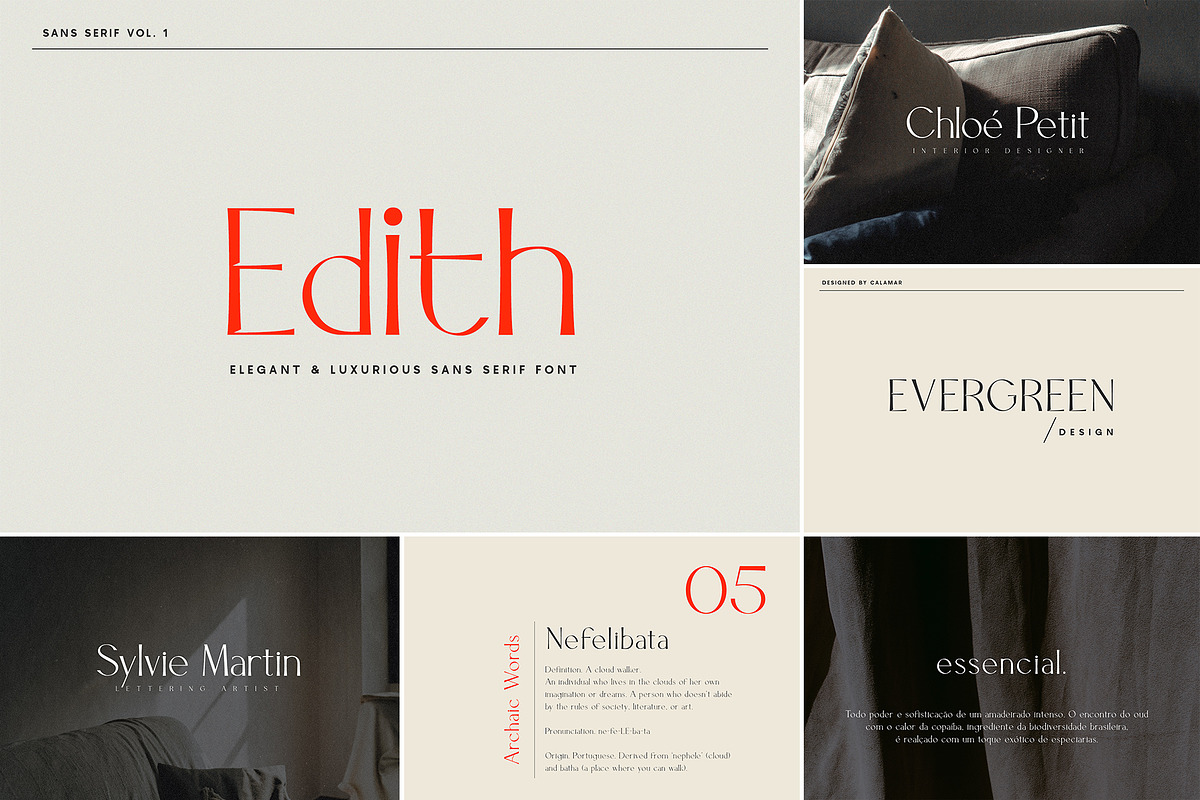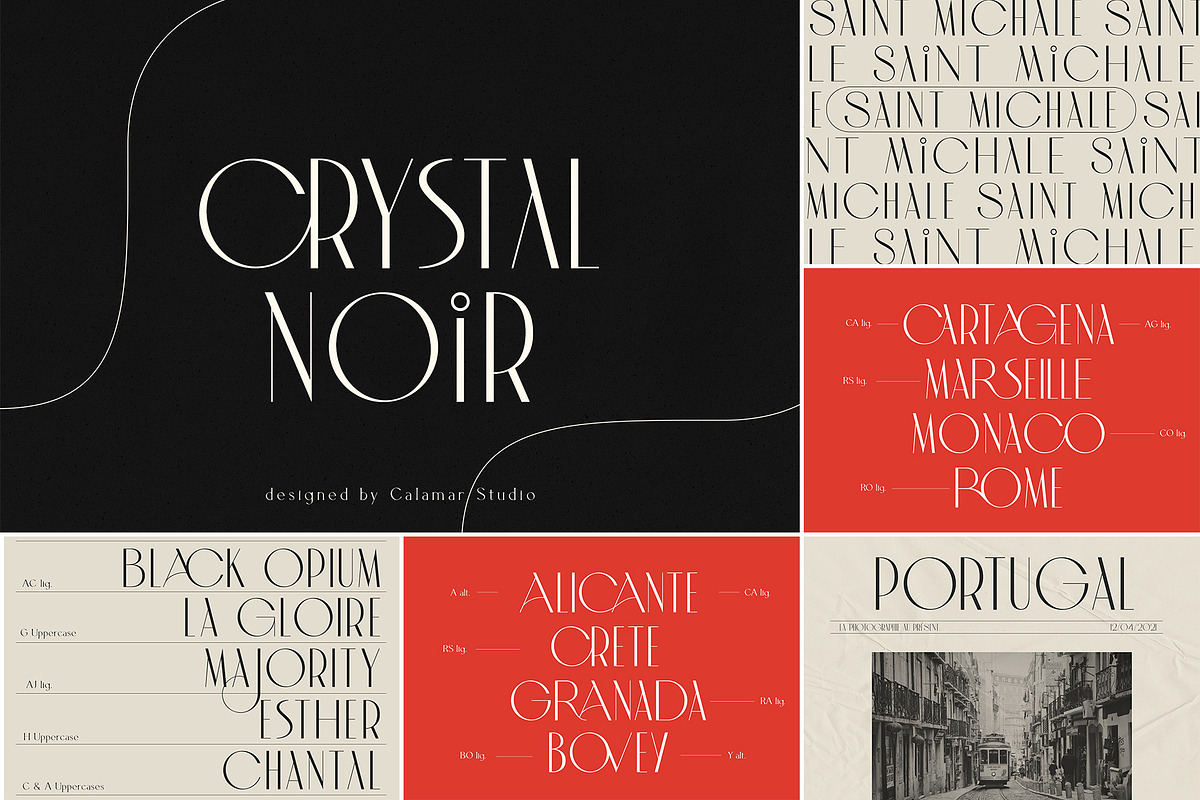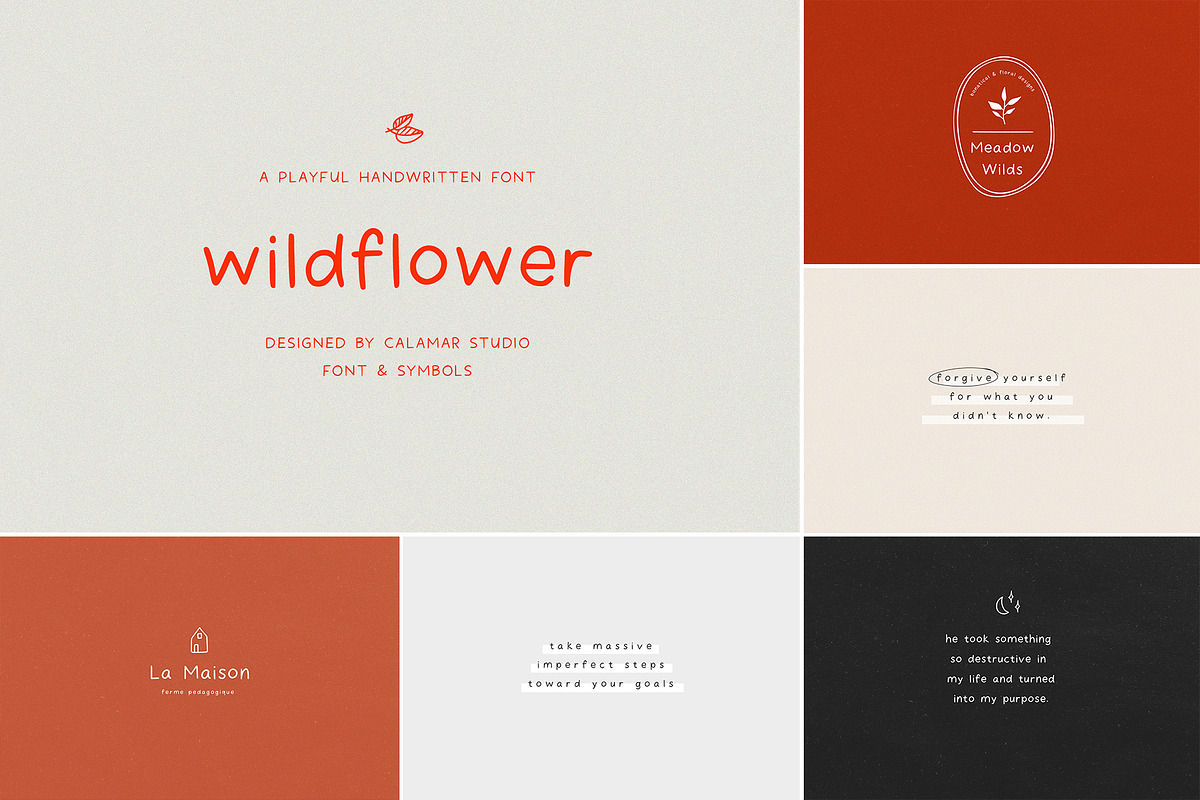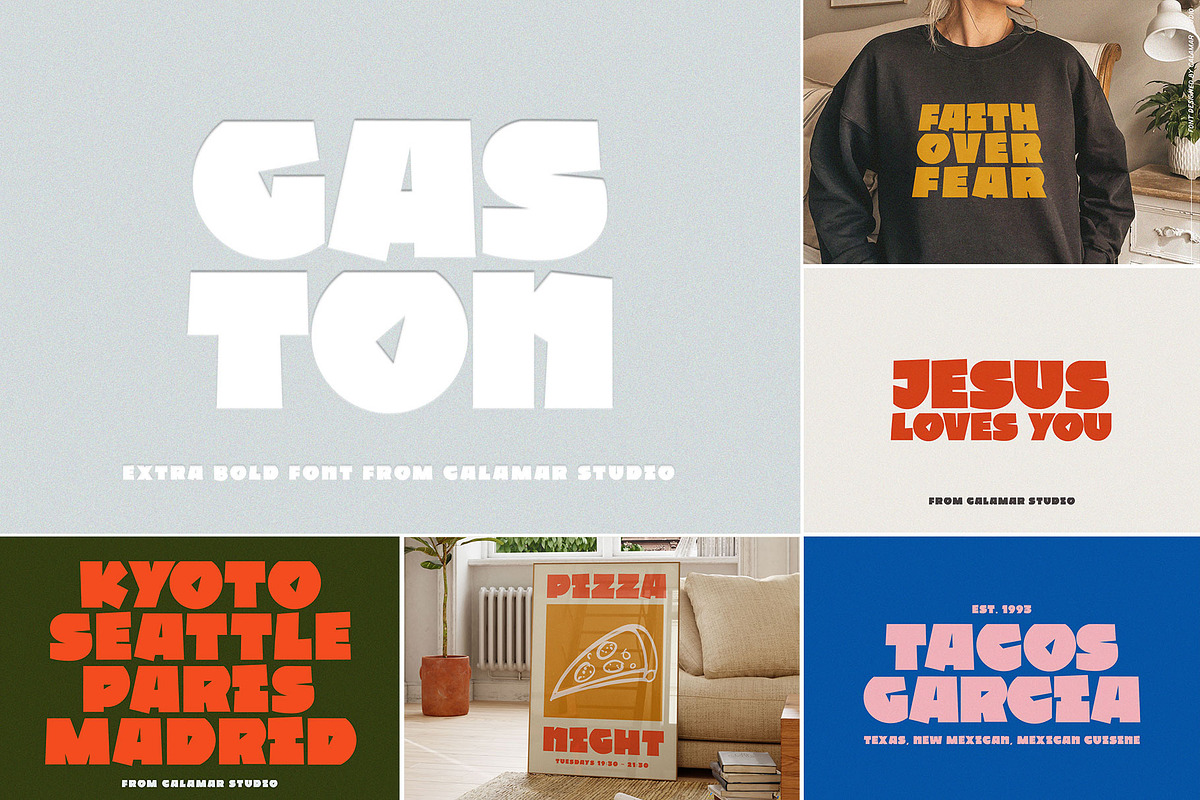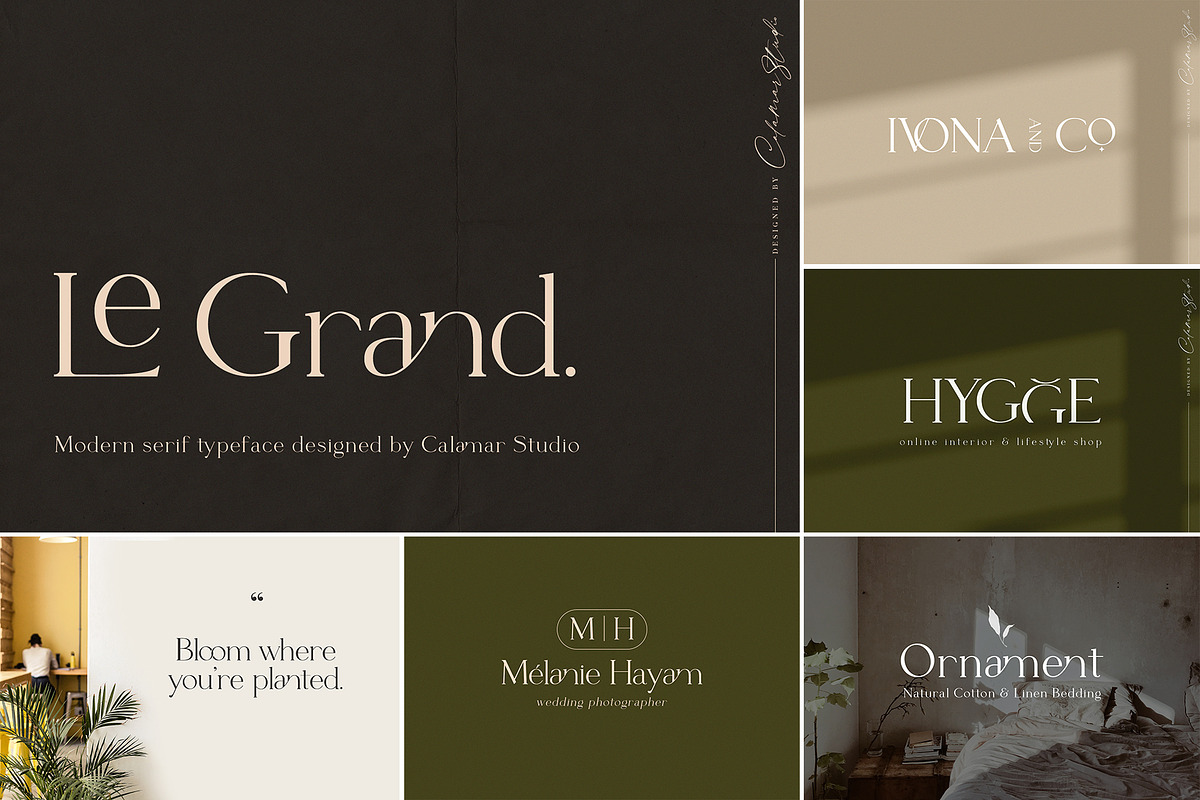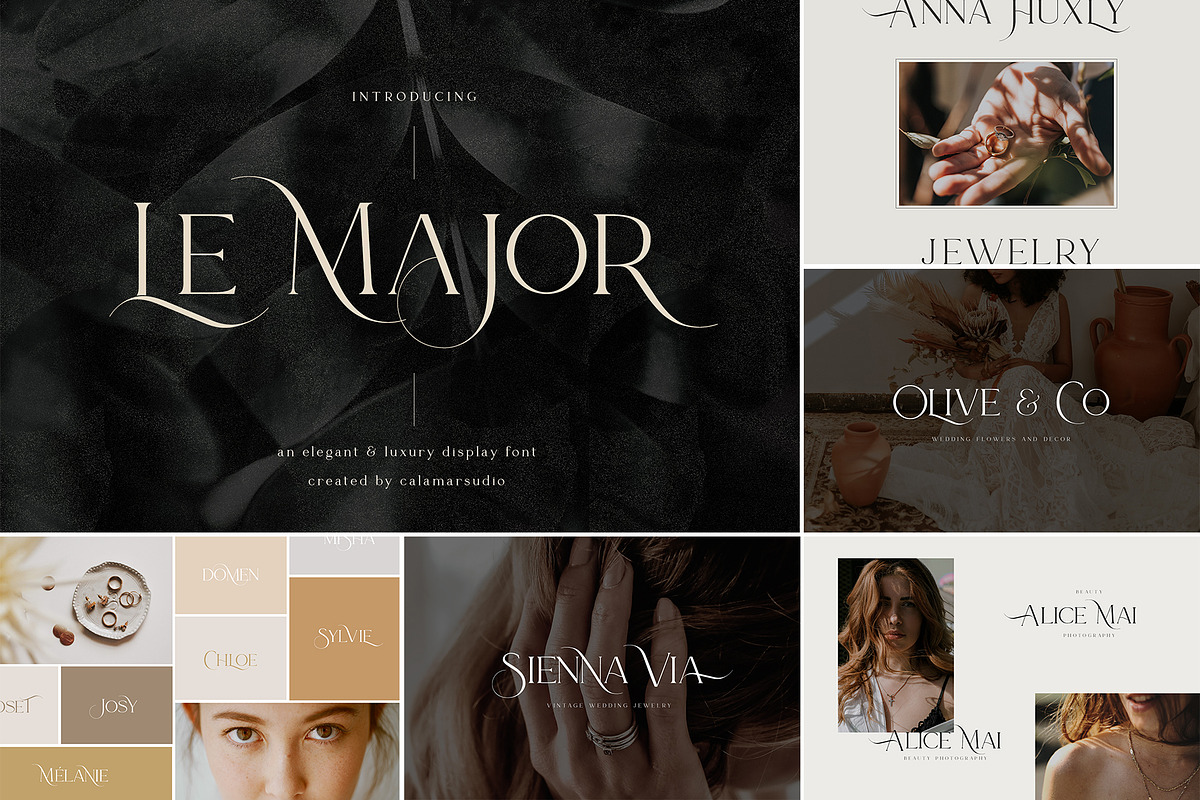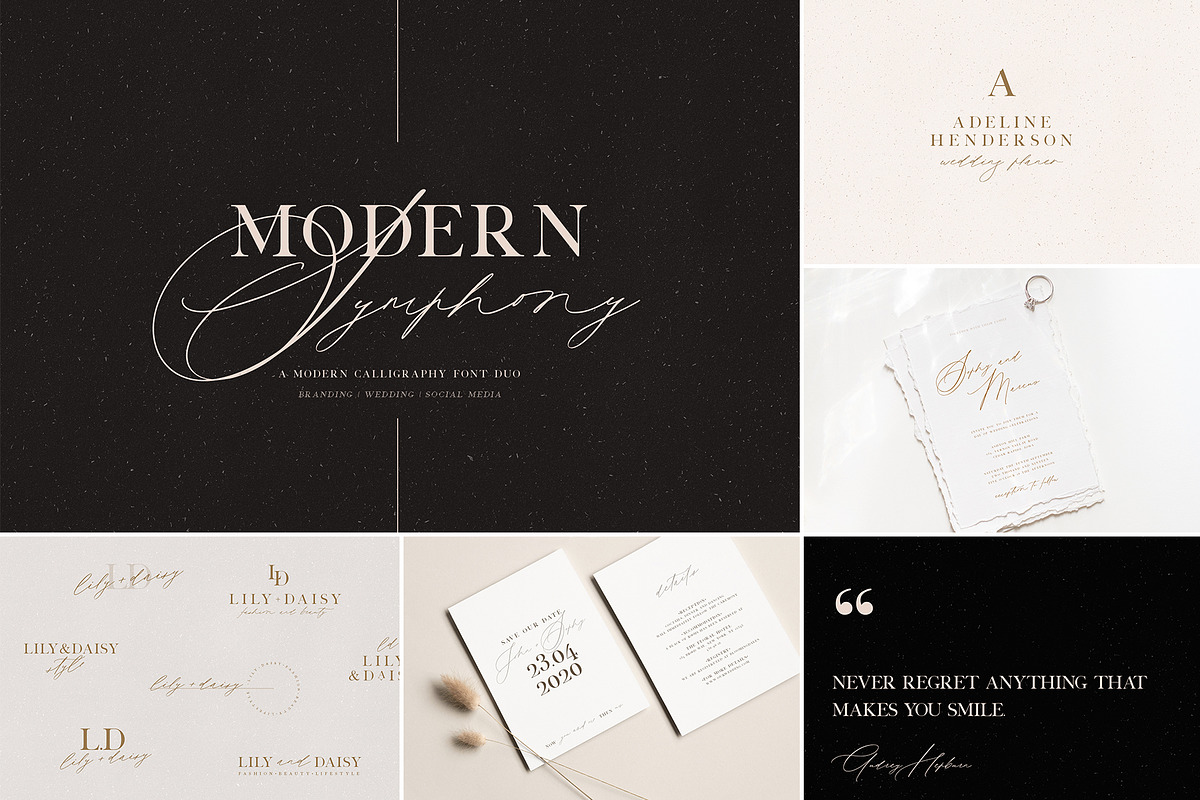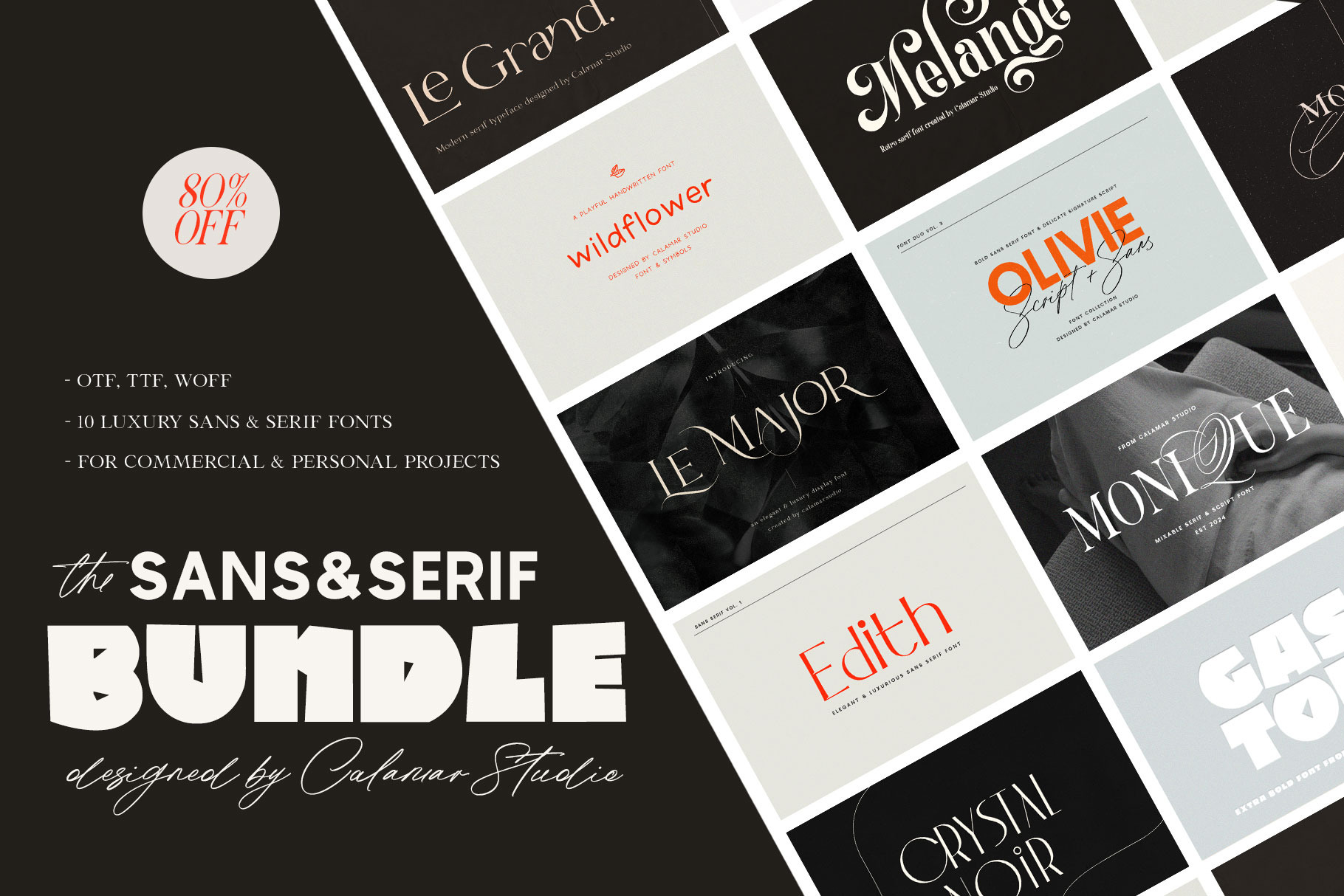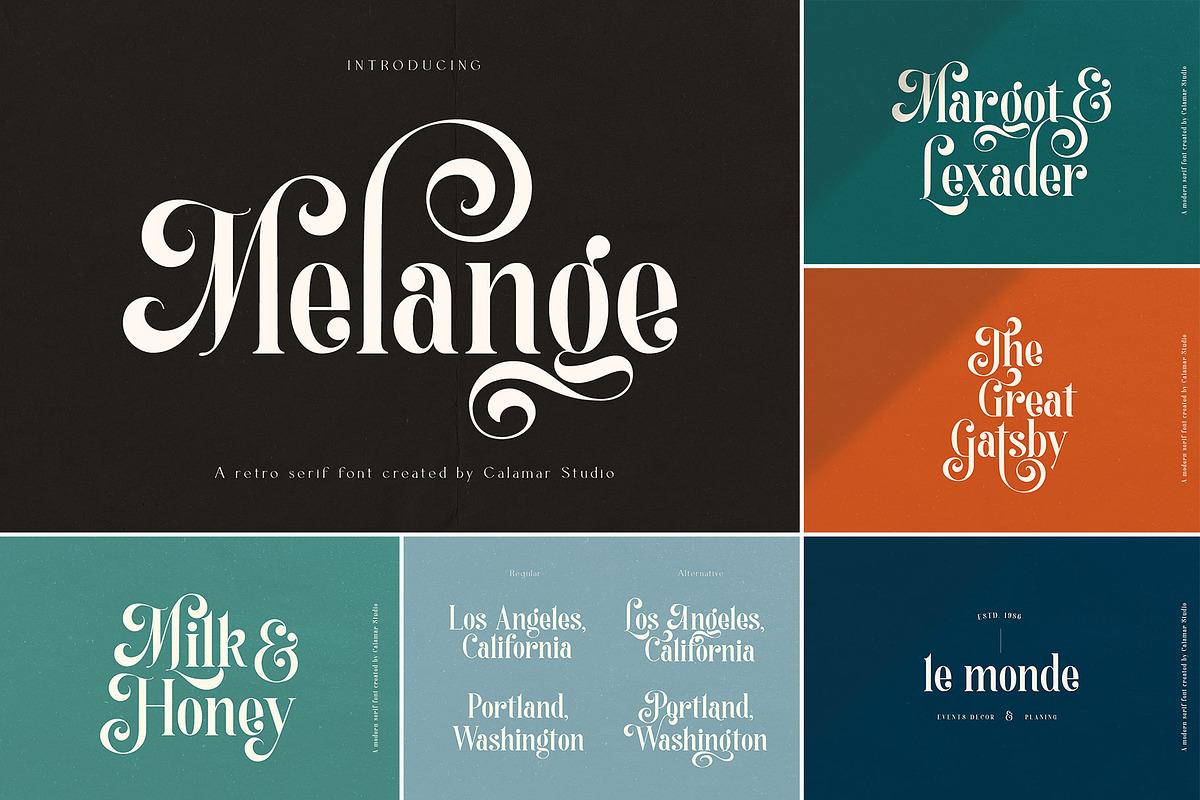
All fonts work perfect for headlines, logos, packaging design, postcard, fashion, invitations, music cover, game poster, cinema, book, magazines, branding, wedding invitations, quotes etc.
THE BUNDLE CONTAINS FOLLOWING FONTS:
Monique https://creativemarket.com/calamarstudio/12790525-Monique-Display-Duo-Font-Logo-Font
Gaston https://creativemarket.com/calamarstudio/291532695-Extra-Bold-Sans-Serif-Font-Gaston
Melange https://creativemarket.com/calamarstudio/6173395-Melange-Retro-Serif-Font
Crystal Noir https://crmrkt.com/paPzwO
Wildflower https://crmrkt.com/GMwAW5
Le Grand https://crmrkt.com/jd1aV1
Le Major https://crmrkt.com/xaywrK
Modern Symphony Font Duo https://crmrkt.com/QPoqyD
Edith https://crmrkt.com/VPKJdW
Olivie Font Duo https://crmrkt.com/yNP4wm